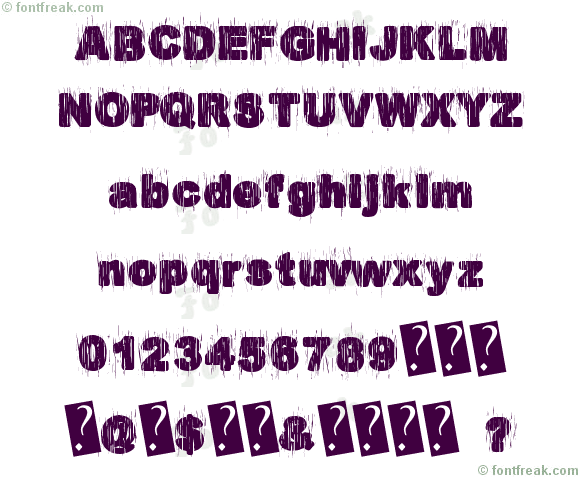
EuroParty
EuroParty by XEROGRAPHER FONTS is a distinctive display font that captures a playful and energetic vibe, making it a perfect choice for various creative projects. This font features a unique, slightly rough texture that gives it a handcrafted feel, setting it apart from more polished typefaces. With its bold stroke weight and a moderate level of contrast, EuroParty exudes a sense of fun and spontaneity, ideal for grabbing attention. The irregular spacing between letters enhances its lively character, making it suitable for designs that aim to convey a sense of movement and excitement.
This font shines in specific use cases, such as party invitations, where its vibrant style can set the mood for celebrations. It also works wonderfully for event posters, especially for music festivals and nightlife promotions, capturing the essence of a lively atmosphere. Additionally, EuroParty can be effectively utilized in restaurant menus that aim to attract a younger clientele or in branding for trendy cafes and bars. Content creators looking to add a unique flair to their social media graphics will also find this font to be a valuable asset.